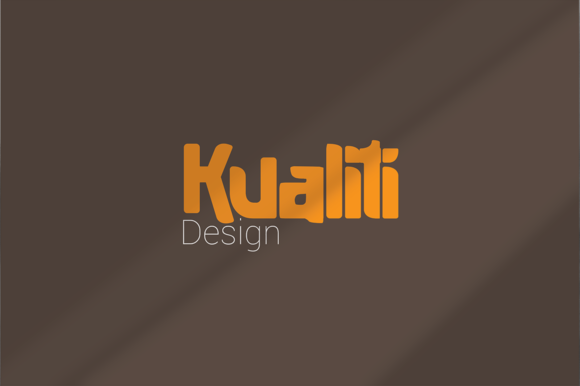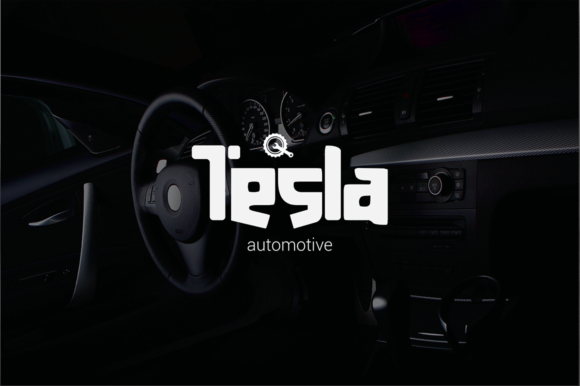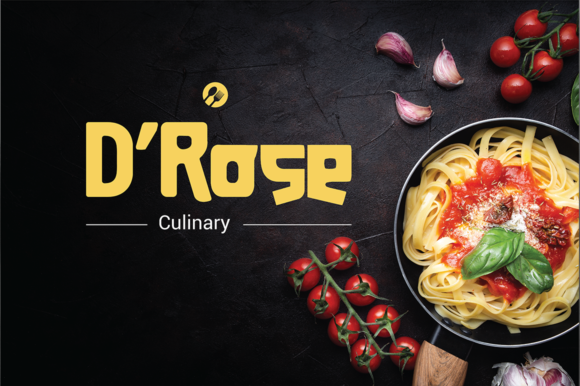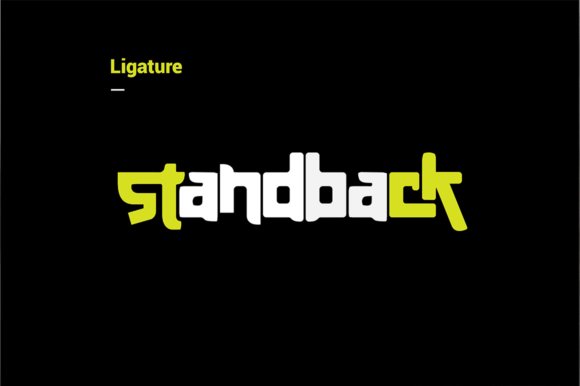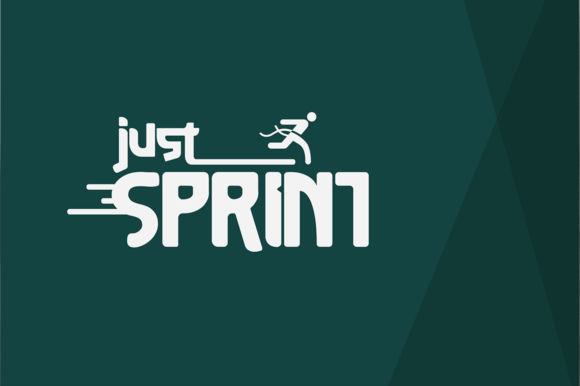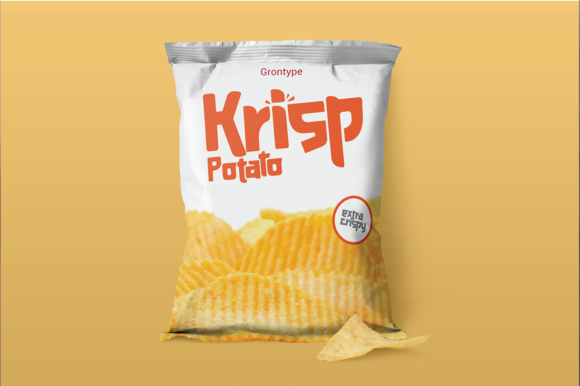
Introduction to Richest Font
Have you ever found yourself stuck in front of your computer, staring blankly at a blank canvas, waiting for inspiration to strike? That’s exactly what happened to me the other day while working on a new design project. I was trying to come up with the perfect font to give my flyer some extra oomph, but nothing seemed quite right. That’s when I stumbled upon the Richest Font – a quirky and incredibly unique display font that immediately caught my eye.
About the Richest Font
The Richest Font is more than just a pretty face – it’s a high-quality design resource that can elevate any creative project to the next level. With its transparent background and bold, eye-catching letters, this font is perfect for making a statement. Whether you’re designing a magazine header, a logo, or a banner, the Richest Font is sure to add a touch of sophistication and style.
The Value of the Richest Font
Key Features of Richest Font
- High-Quality Design: Richest Font offers a premium collection of high-quality fonts perfect for any creative project.
- Transparent Background: Each font comes with a transparent background, allowing for seamless integration with any design.
- Large Character Set: Richest Font includes a large character set, covering a wide range of languages and characters.
Honest Review: Richest Font
I recently had the opportunity to try out the Richest Font, a popular design resource that promises high-quality typography for creative projects. I was excited to see if it lived up to its claims.
Here are the things that worked well: ✨ The font is incredibly versatile and can be used for a wide range of designs, from elegant wedding invitations to modern business logos. The transparent background makes it easy to layer over other design elements, and the font is highly customizable.
Overall, I was impressed with the Richest Font. It’s a great addition to any designer’s toolkit, and I appreciate the transparent background and high-quality design. If you’re looking for a reliable design resource, the Richest Font is definitely worth checking out.
The Richest Font